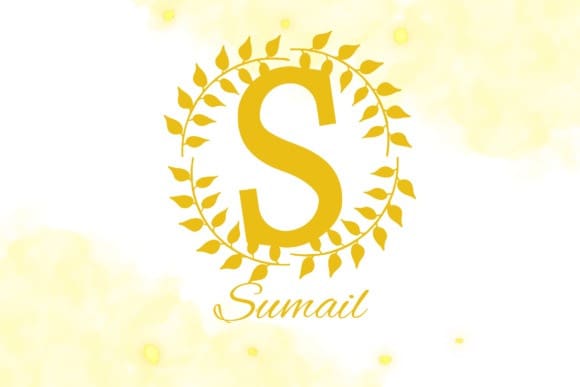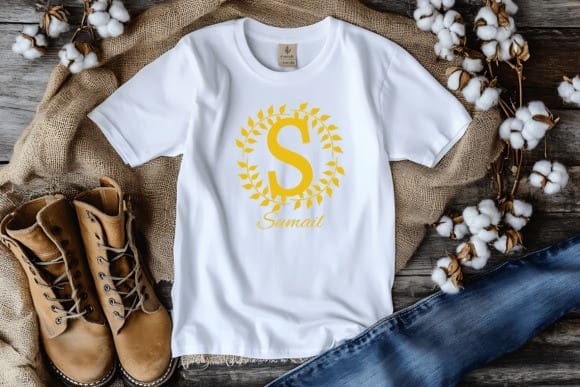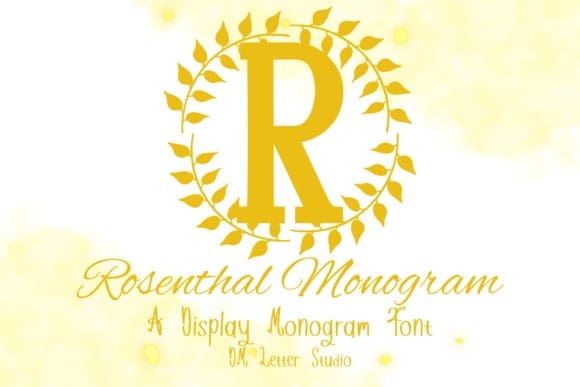
Rosenthal Monogram Font
Rosenthal Monogram Font is an elegant serif font crafted especially for classic monogram designs. With graceful letterforms and delicate curves, it brings timeless elegance to personal and professional projects. This monogram font is ideal for wedding invitations, luxury branding, premium packaging, signage, and gifts that need a sophisticated touch. Whether you’re working on custom logos or personalized crafts, Rosenthal adds a beautiful, high-end finish to every design.
This font is designed with uppercase A–Z characters, carefully built with balance and style in mind. Each letter stands strong on its own or pairs beautifully in initials, making it perfect for creating bespoke branding or monogram sets. The serif styling gives it an air of tradition and heritage, making it especially suited for formal occasions like weddings, anniversaries, or high-end packaging.
Rosenthal supports full multilingual characters and includes basic punctuation and numerals, offering flexibility for diverse creative needs. Whether you’re a professional designer, crafter, or small business owner, this font delivers sophistication with ease.